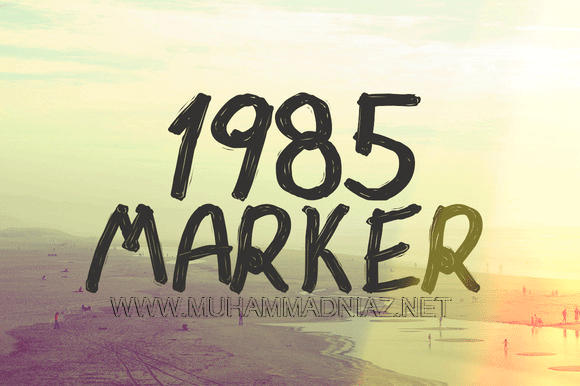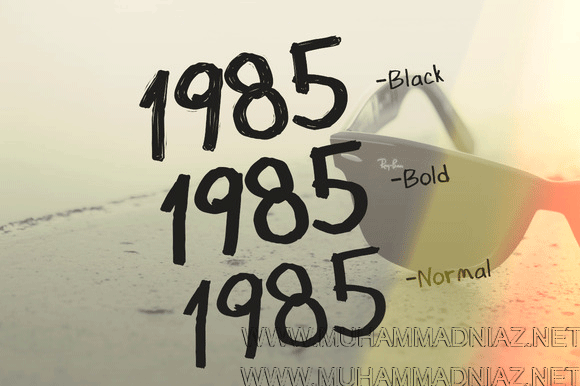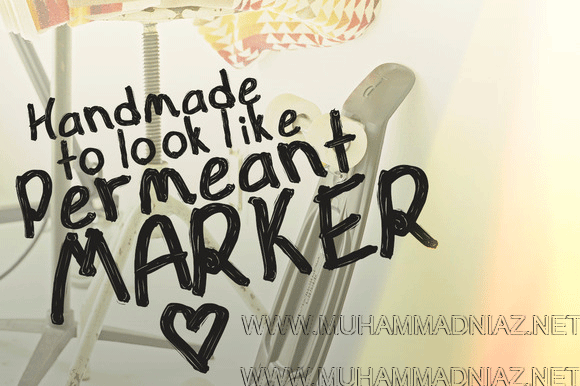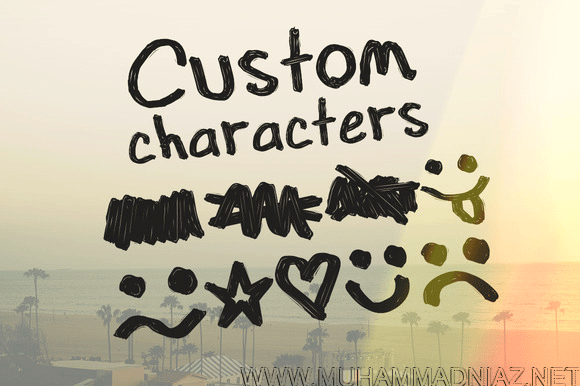
1985 Marker Font Free Download
1985-Marker Font is a fun font when you need text to look like it was quickly written with a Sharpie. Kerning and spacing is custom set to show slight imperfections when writing by hand with a marker. There are 3 different styles and extra custom characters such as smiley faces and pen scratch outs.
1985 Marker Font